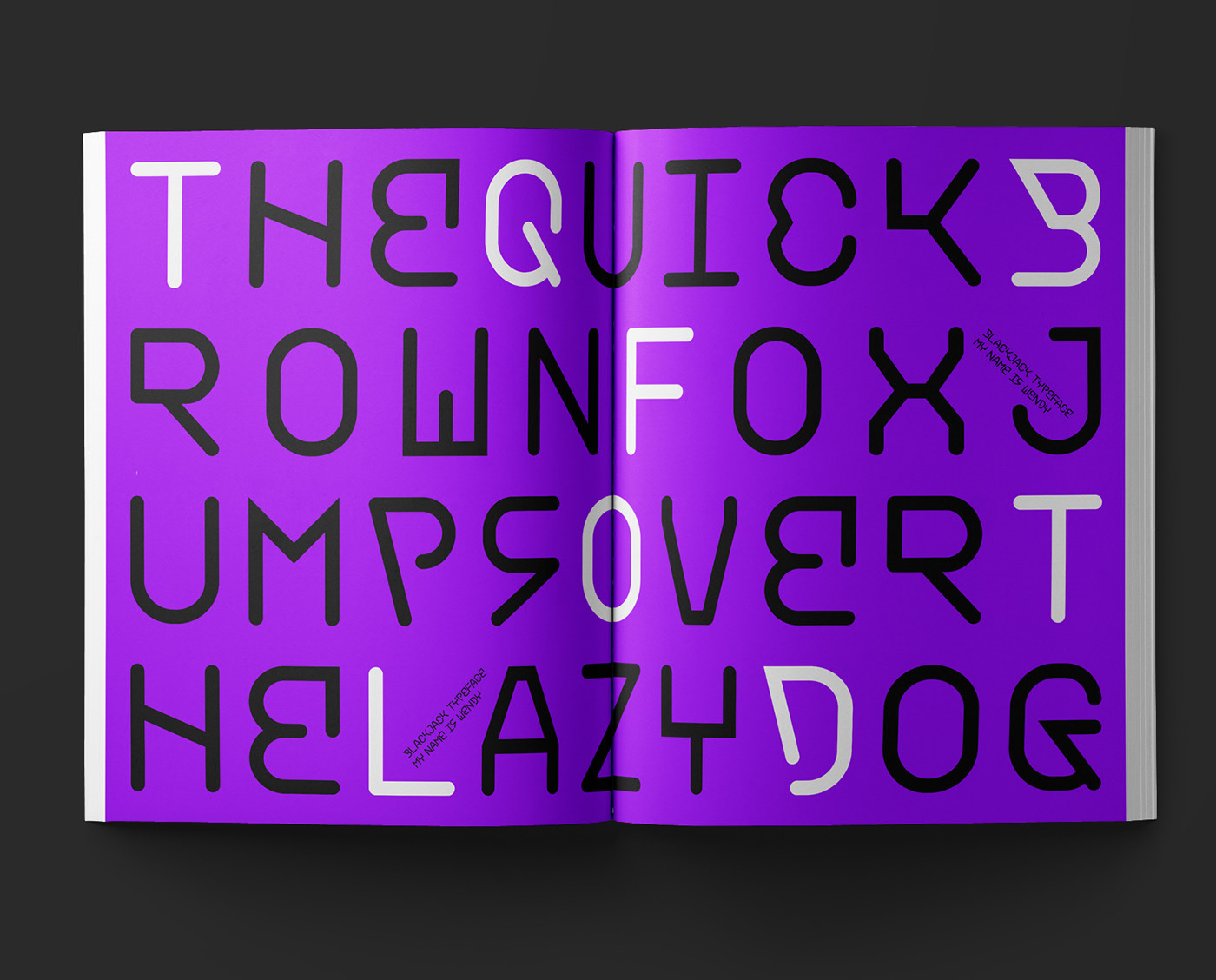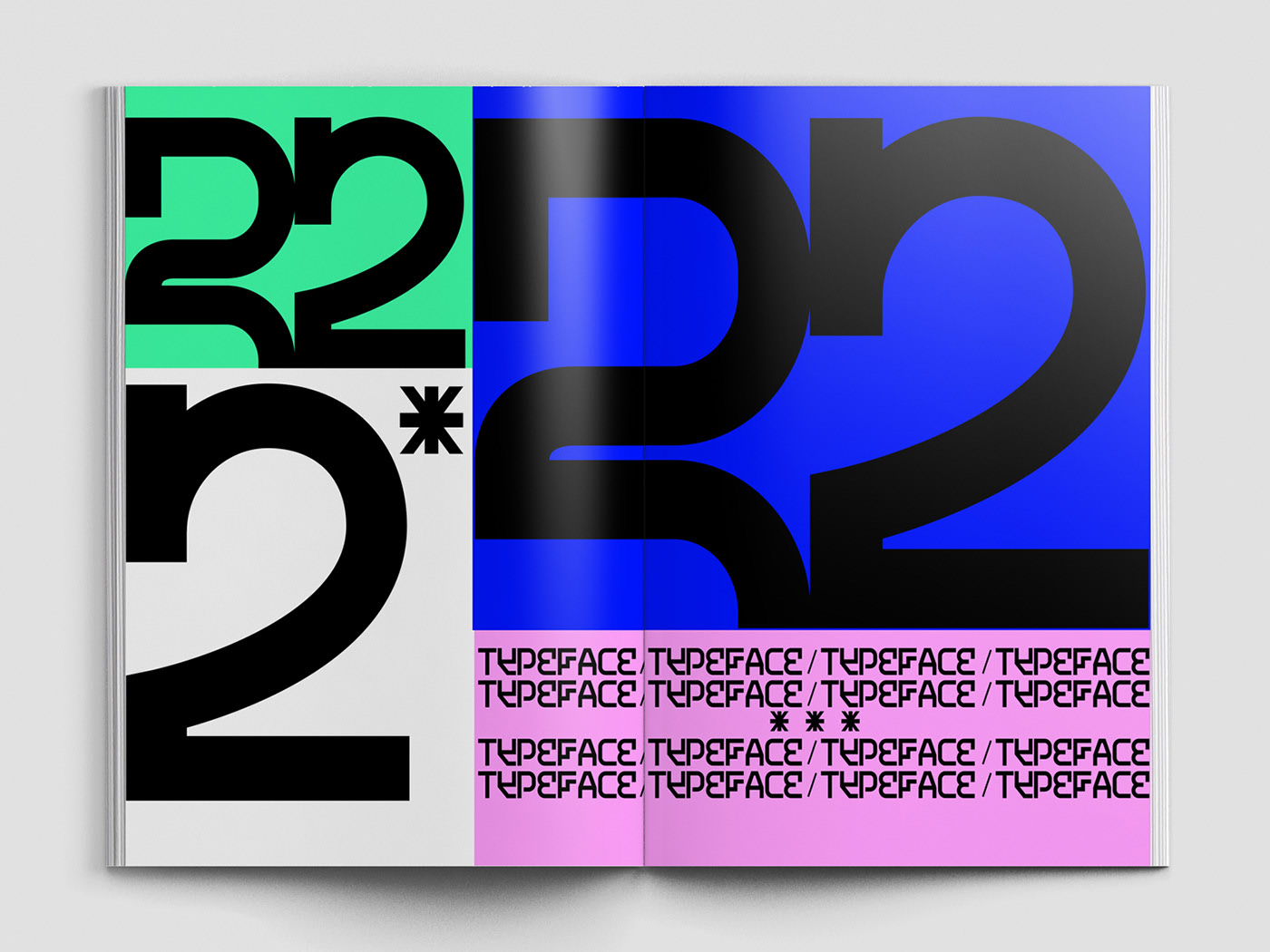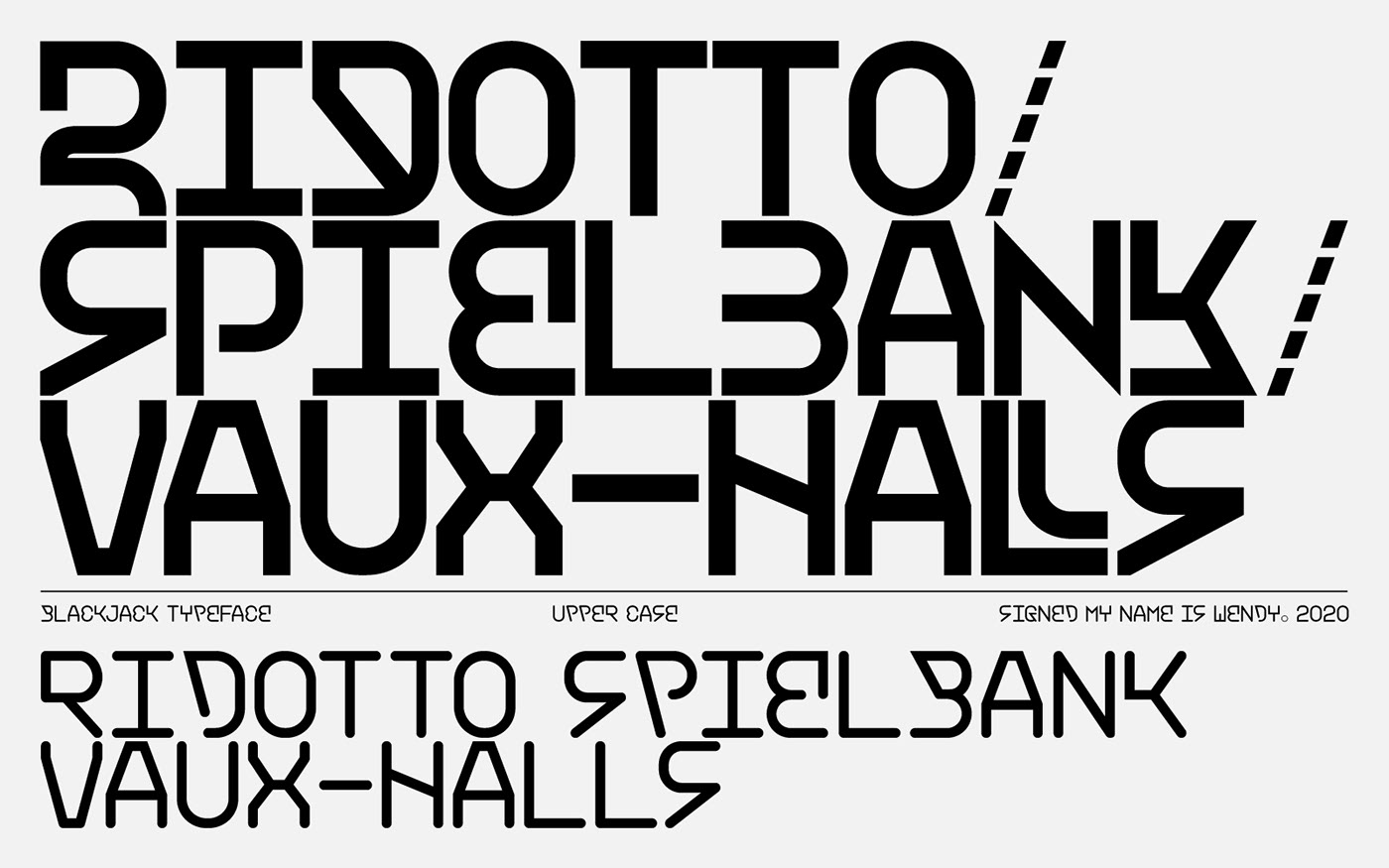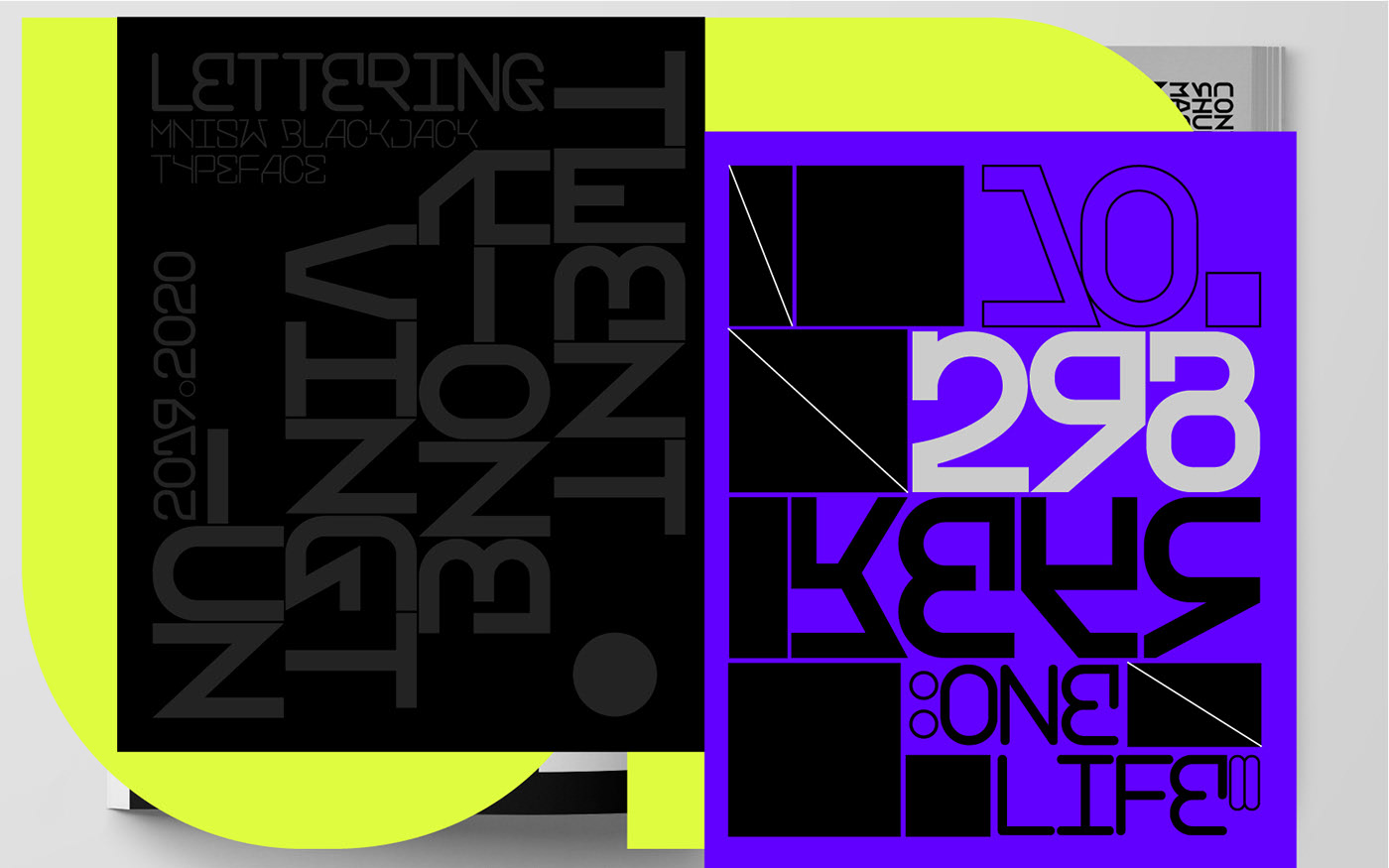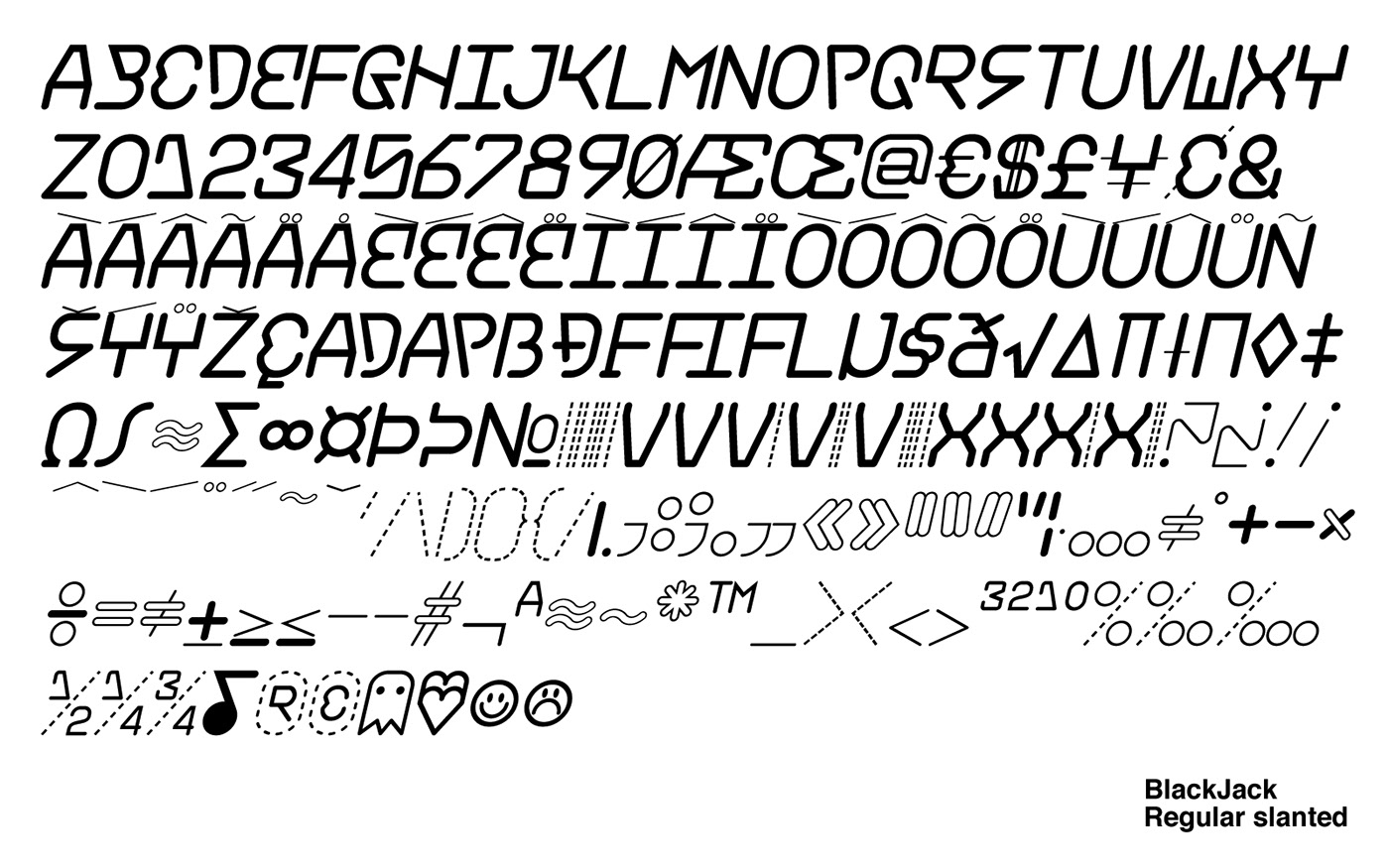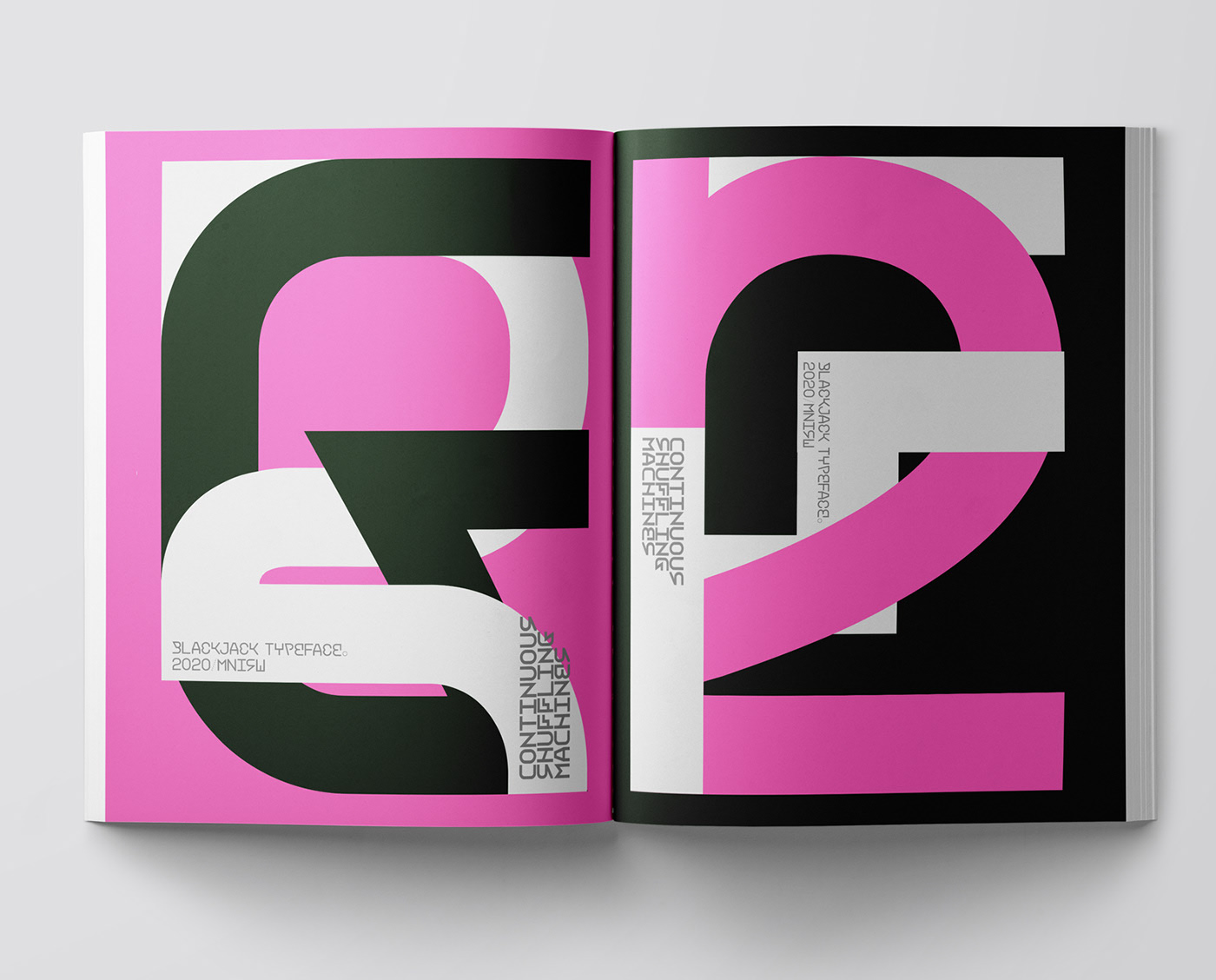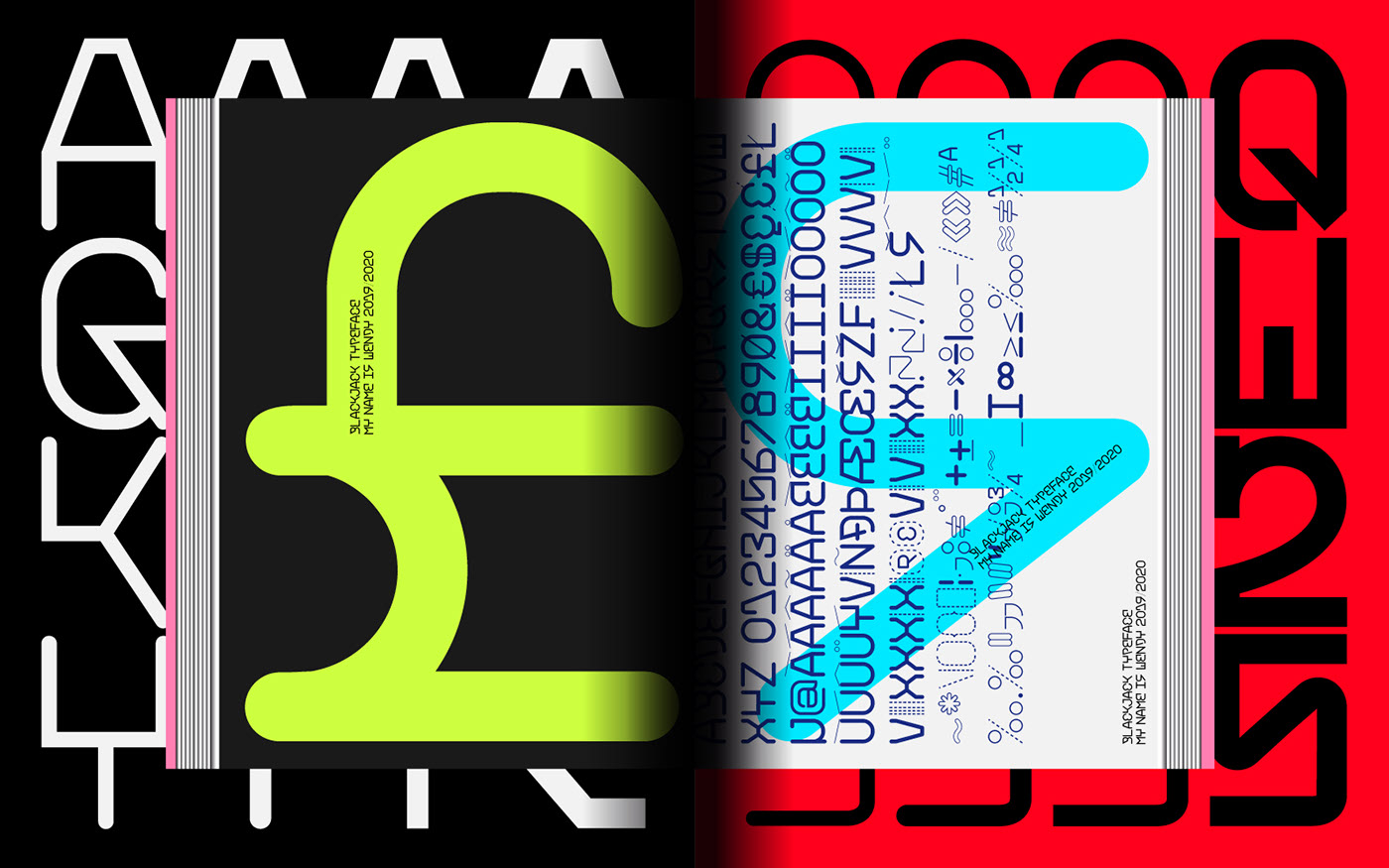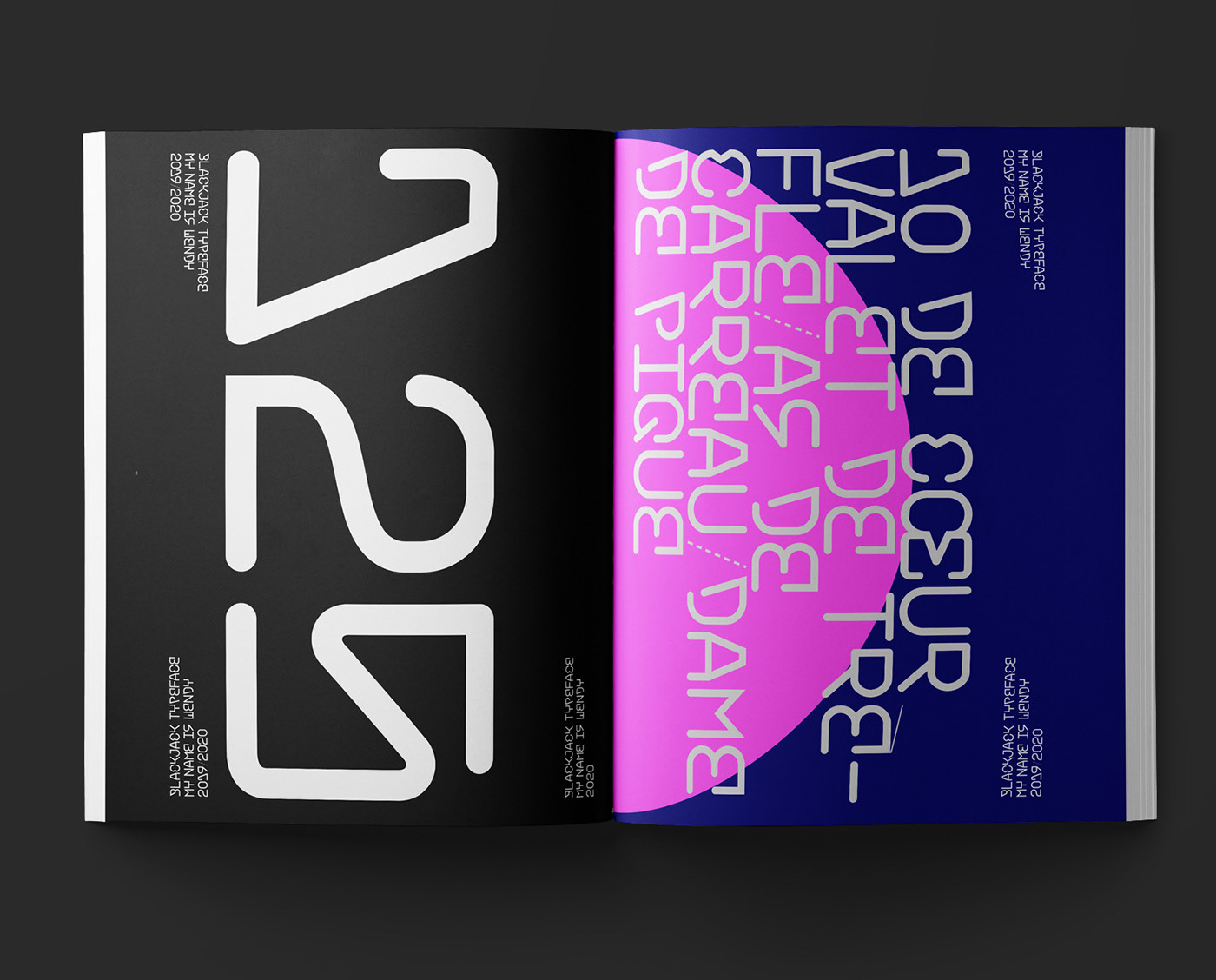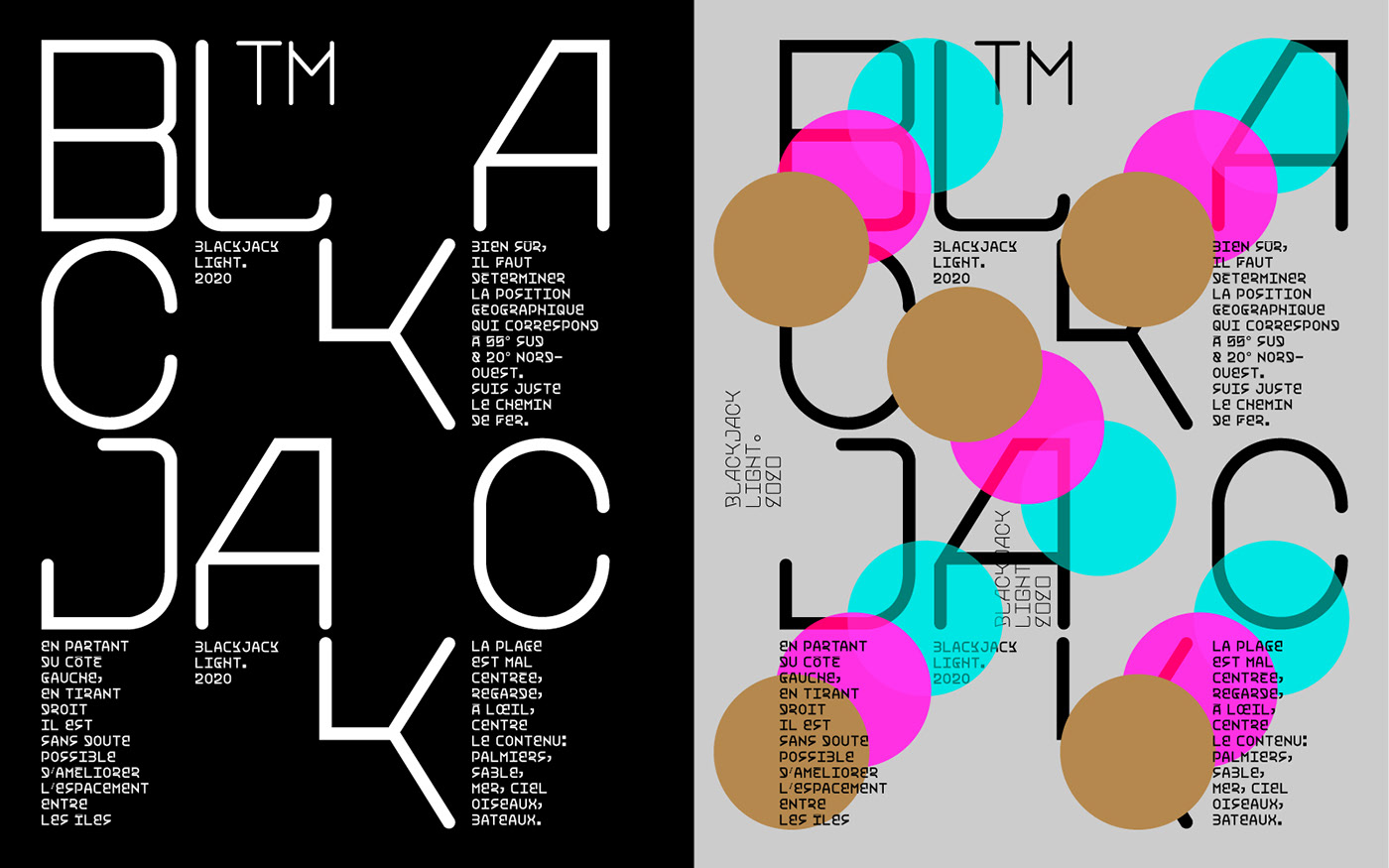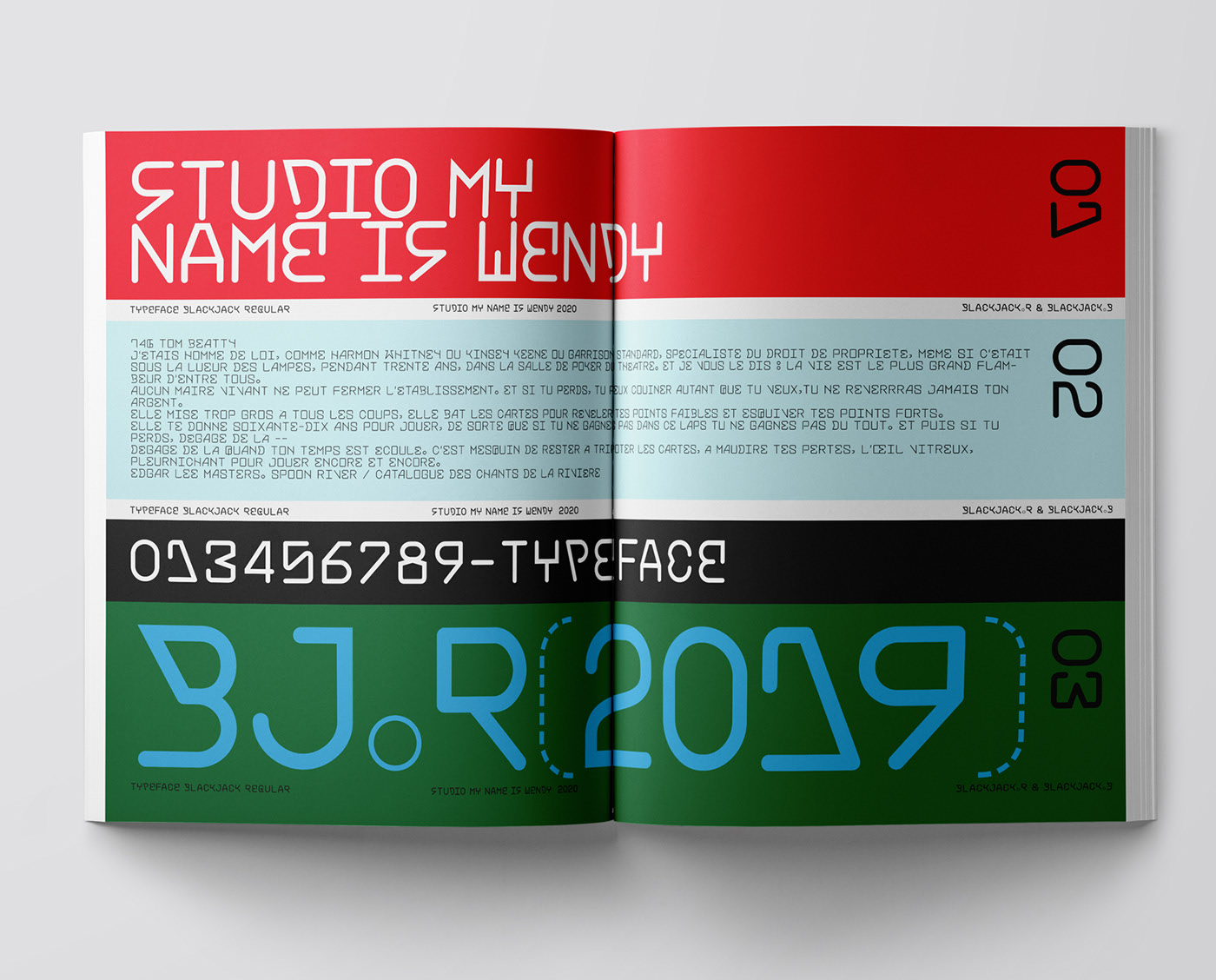
My Name is Wendy Studio designed BlackJack Typeface. The project consisted on the development of the typography and this was accompanied by a very complete graphic system to introduce the uses and variables of the typeface. The project shows the typeface as part of an editorial language, used in contrast with striking bold colors, to accentuate the personality of the typography.